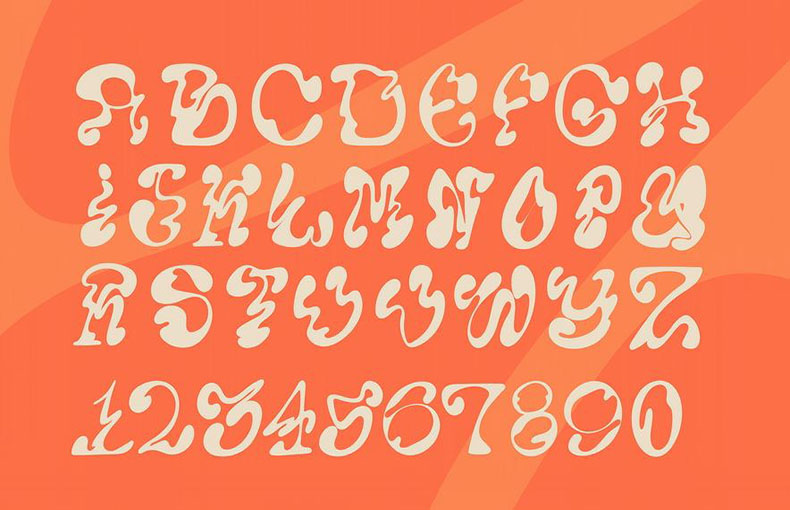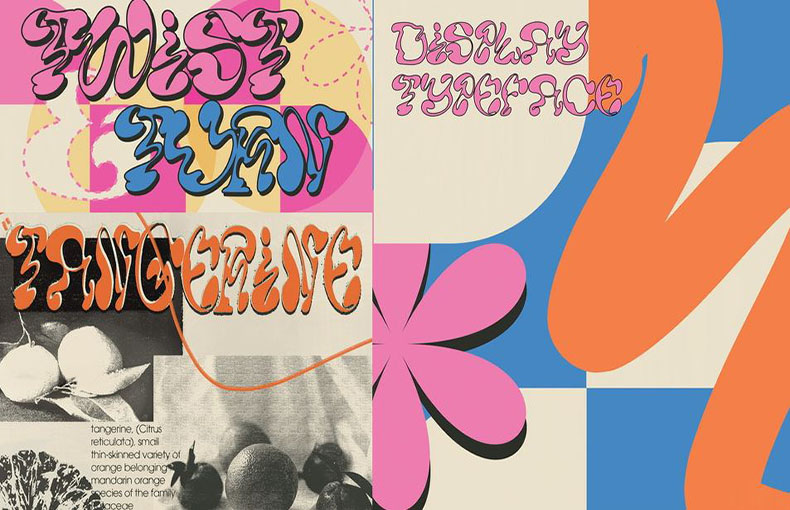
Wriggle Font is a free experimental display typeface created by Vani Jain. It was created from the first set of characters from the 36 Days of Type venture and is intended to be playful and indefinite.
The letters are hand-drawn and then digitized, and they have a unique, natural seem and feel. It is a versatile typeface that can be used for a range of purposes.
It would be a good preference for headlines, posters, logos, and different innovative projects. It can additionally be used for body text, however, the irregular letterforms can also make it difficult to read long passages of text.
The font Wriggle contains 41 glyphs.